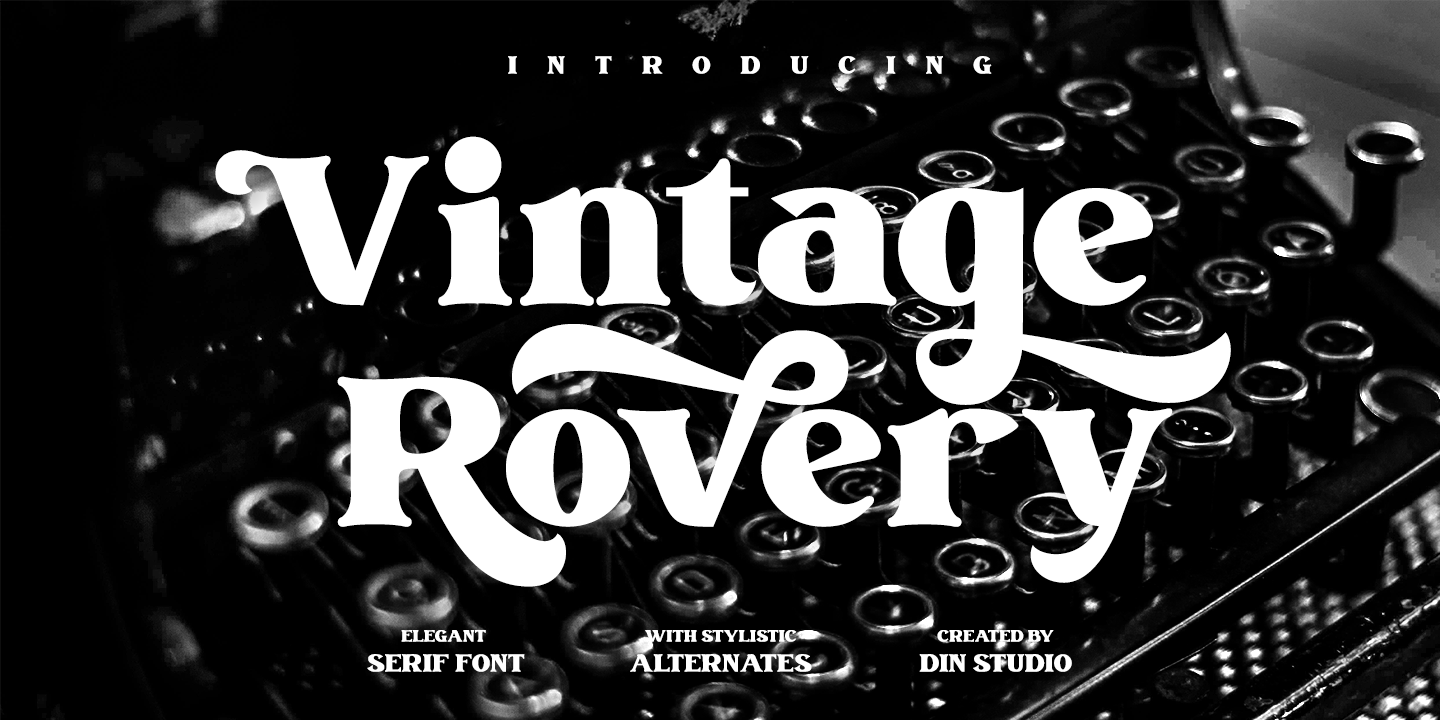
Vintage Rovery Font is a charming and wonderfully evocative typeface, perfectly suited for projects that aim to capture the nostalgic spirit of bygone eras, adventure, and classic handcrafted elegance. Imagine it gracing the labels of artisanal spirits or gourmet food products, adding a rustic yet refined touch to retro travel posters, or bringing a personal and inviting personality to antique shop branding. It's also an excellent choice for crafting distinctive menus for vintage-themed cafes, designing unique signage for bespoke workshops, or infusing blog headers and social media posts with a genuine, old-world appeal. If you're looking to convey heritage, authenticity, and an undeniable sense of timeless discovery, Vintage Rovery Font is an outstanding selection.
What makes Vintage Rovery Font so exciting? It’s its unique ability to combine a fluid, often handcrafted or script-like aesthetic with impressions of weathered charm and classic elegance, making it both visually appealing and highly practical for diverse applications. This font often features soft curves, subtle imperfections, and a friendly, unpretentious charm that gives it an immediate sense of warmth and accessibility, reminiscent of hand-drawn lettering from classic advertisements. Despite its informal character, Vintage Rovery Font is meticulously designed to maintain excellent readability, ensuring your message is communicated clearly and with a warm, inviting tone. Designers will appreciate its versatility in creating designs that feel both intimately personal and professionally charming, making it a go-to choice for brands and projects that aim to connect with their audience through themes of nostalgia, adventure, and a welcoming atmosphere.
The Vintage Rovery Font family is typically designed to showcase a singular, distinctive display or script style that perfectly encapsulates its unique appeal. While it may not feature extensive weight variations like a traditional text font, its strength lies in its inherent personality and often includes stylistic alternates or simple ligatures that enhance its cheerful aesthetic. These subtle details allow Vintage Rovery Font to maintain its cohesive and heartwarming look across various applications, from inviting e-commerce banners for vintage goods to charming personal correspondence. Discover the delightful possibilities with Vintage Rovery Font Free Download and infuse your designs with an irresistible, comforting charm.